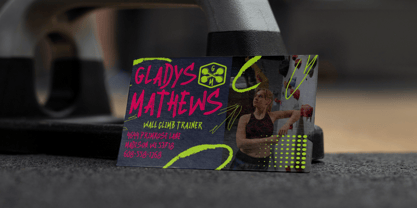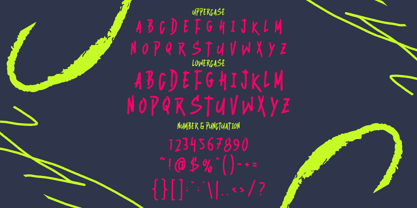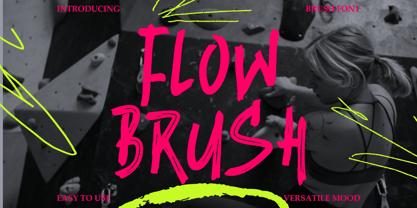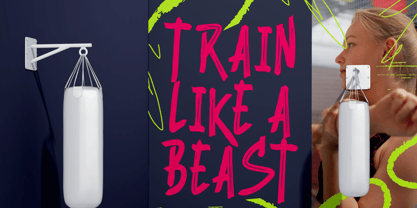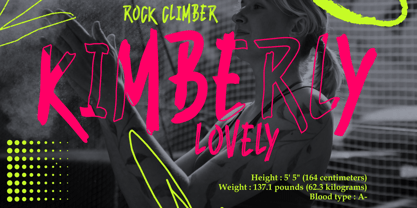
Flowbrush
by Shanaf
The Flowbrush Font Family was designed by Yesie Erma Yunita and published by Shanaf. Flowbrush contains 1 styles. More about this family
Flowbrush Brush Font is a hand-drawn typeface that captures the raw intensity of brush lettering. Each character is crafted with energetic strokes, creating a bold and expressive texture that feels authentic and powerful. The uneven lines and rough edges highlight the natural flow of real brushwork, making every word look alive. With its modern yet rugged aesthetic, Flowbrush is ideal for projects that need a confident and artistic voice. From bold headlines to standout branding, this font adds personality and edge to any layout.
This font works beautifully across different creative needs, including logos, posters, packaging, apparel, and social media graphics. Its versatile brush style balances casual movement with structured readability, making it both stylish and functional. Flowbrush adds a handcrafted touch to business identities, film titles, magazine covers, and creative campaigns. Whether you’re designing bold product packaging or gritty event posters, this font delivers a sense of energy, movement, and artistic freedom that elevates your visual storytelling.